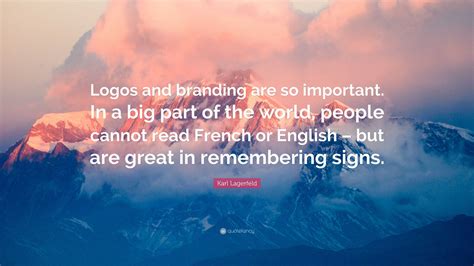
Fonts And Signs Are The Most Important Part Of Branding
Noto is a collection of high-quality fonts in more than 1,000 languages and over 150 writing systems. Google Sans Code is a fixed-width, geometric sans-serif typeface developed to complement Google's corporate branding fonts. Derived from our other brand fonts, this typeface has been crafted. TikTok Sans is a modern typeface available on Google Fonts, blending style and functionality for diverse design needs.